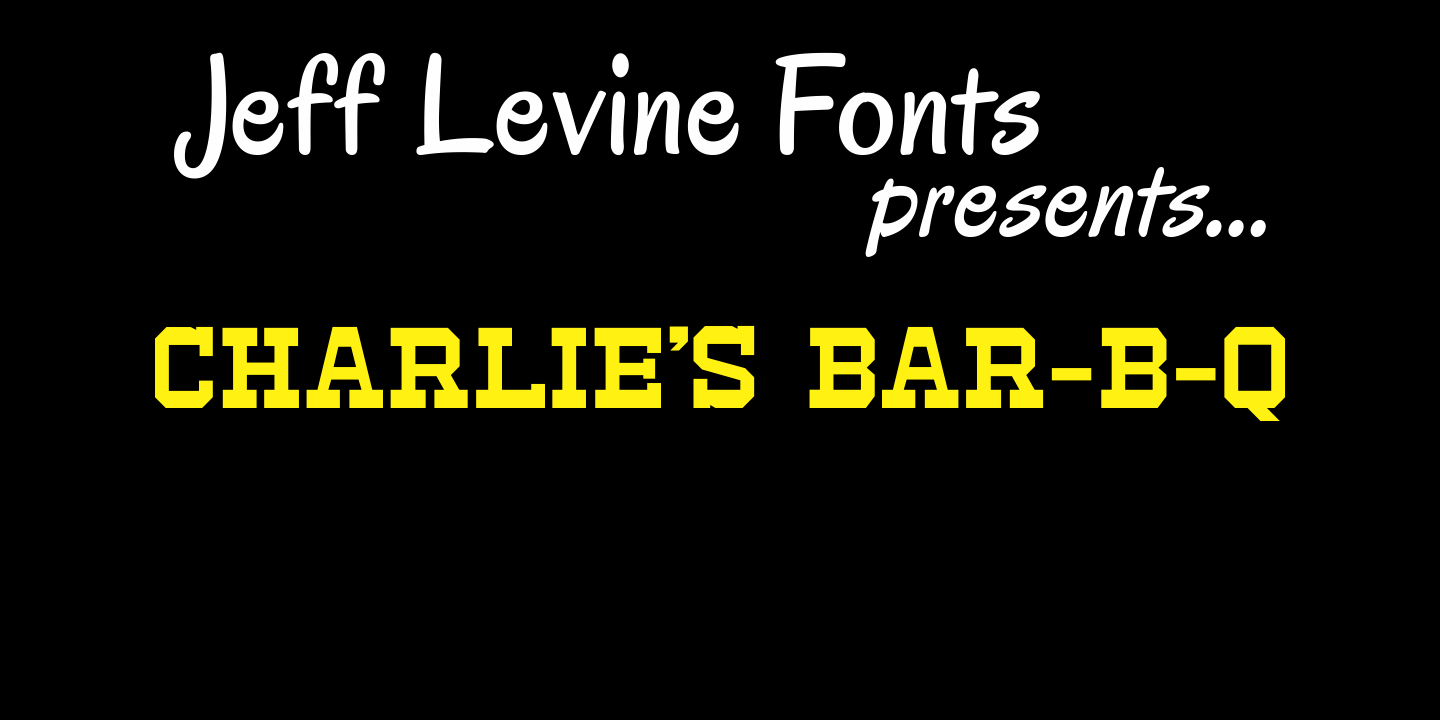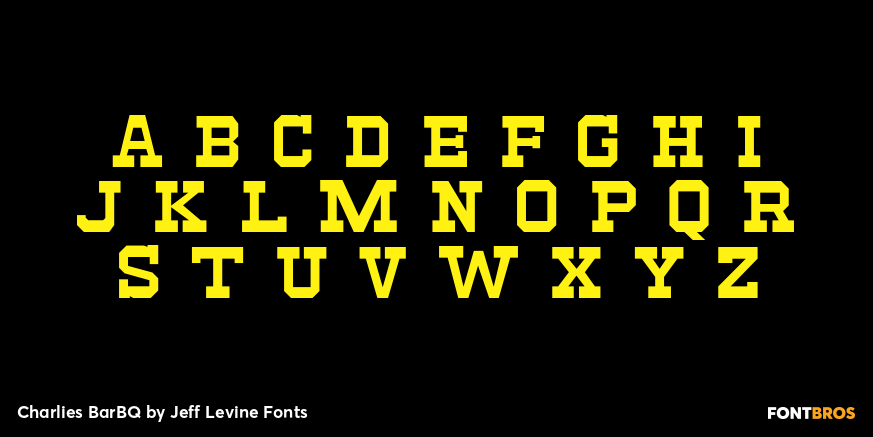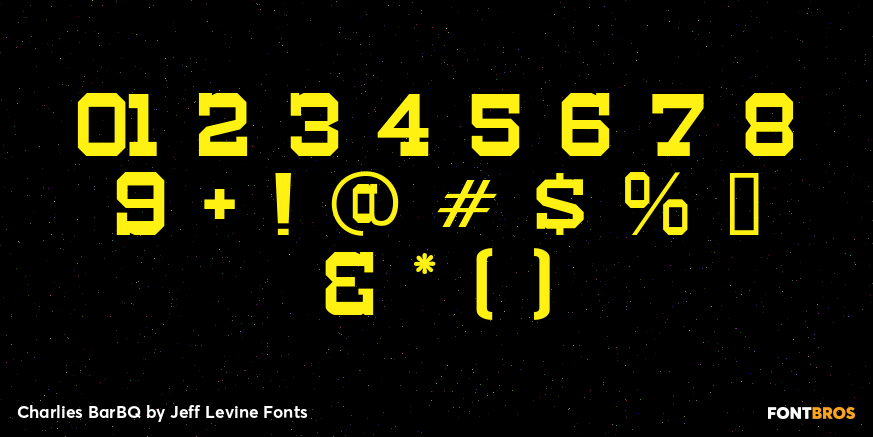
Charlies BarBQ
Charlie's Bar-B-Q is an original, hand lettered Western style typeface, and named after a once-popular Bar-B-Q joint in the South Floiida area.